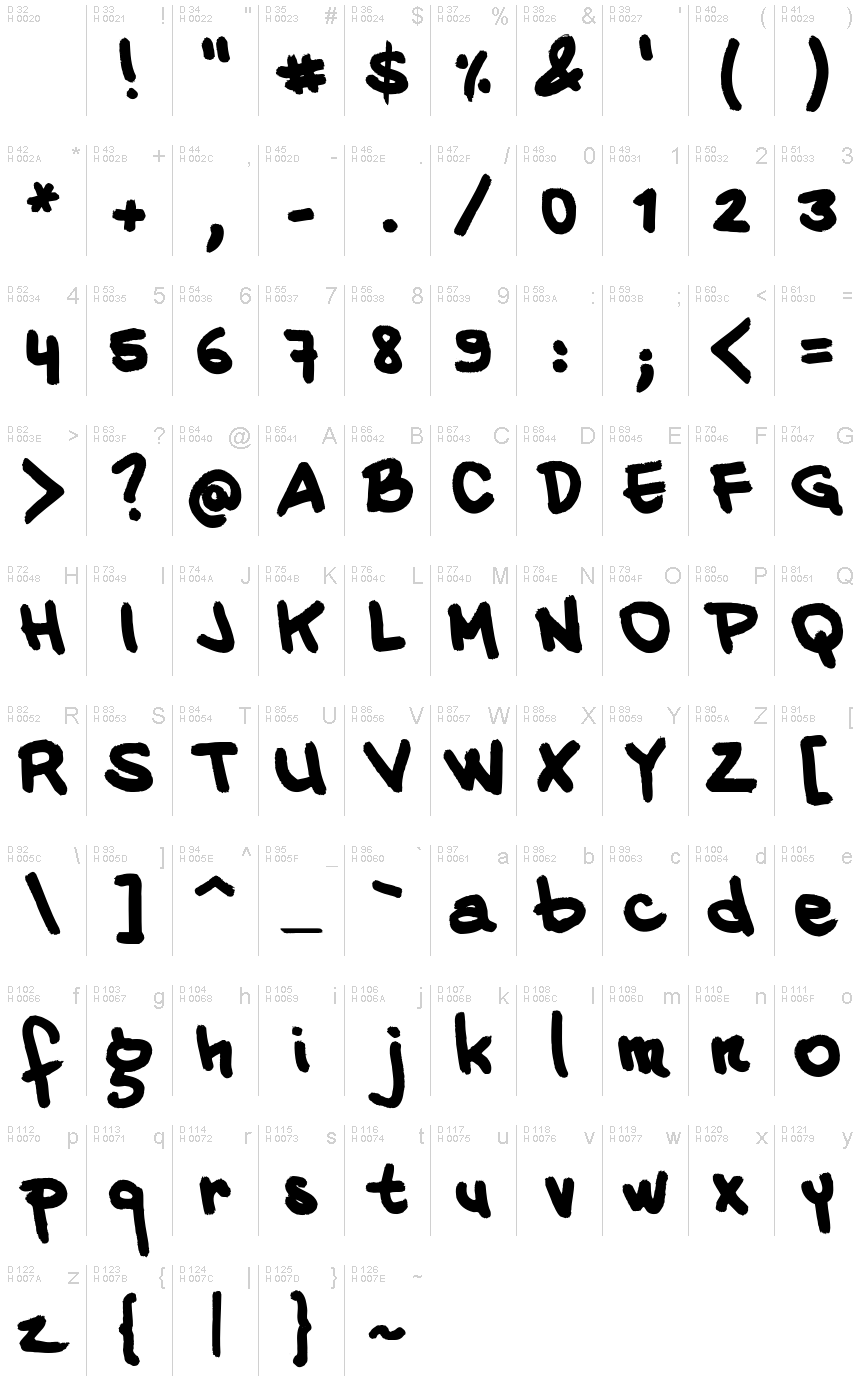
20 CENTS MARKER Bold
20 Cents Marker is a bold, brush-style font that exudes a distinctive, handcrafted aesthetic. With its dynamic, expressive strokes and energetic personality, this font commands attention and adds a touch of raw, authentic flair to any design. Its marker-inspired appearance lends itself well to a wide range of applications, from eye-catching headlines and branding to packaging, signage, and more.
The font's bold weight and bold, uncompromising character make it a versatile choice for designers seeking to create impactful, attention-grabbing visuals that evoke a sense of artisanal craftsmanship.